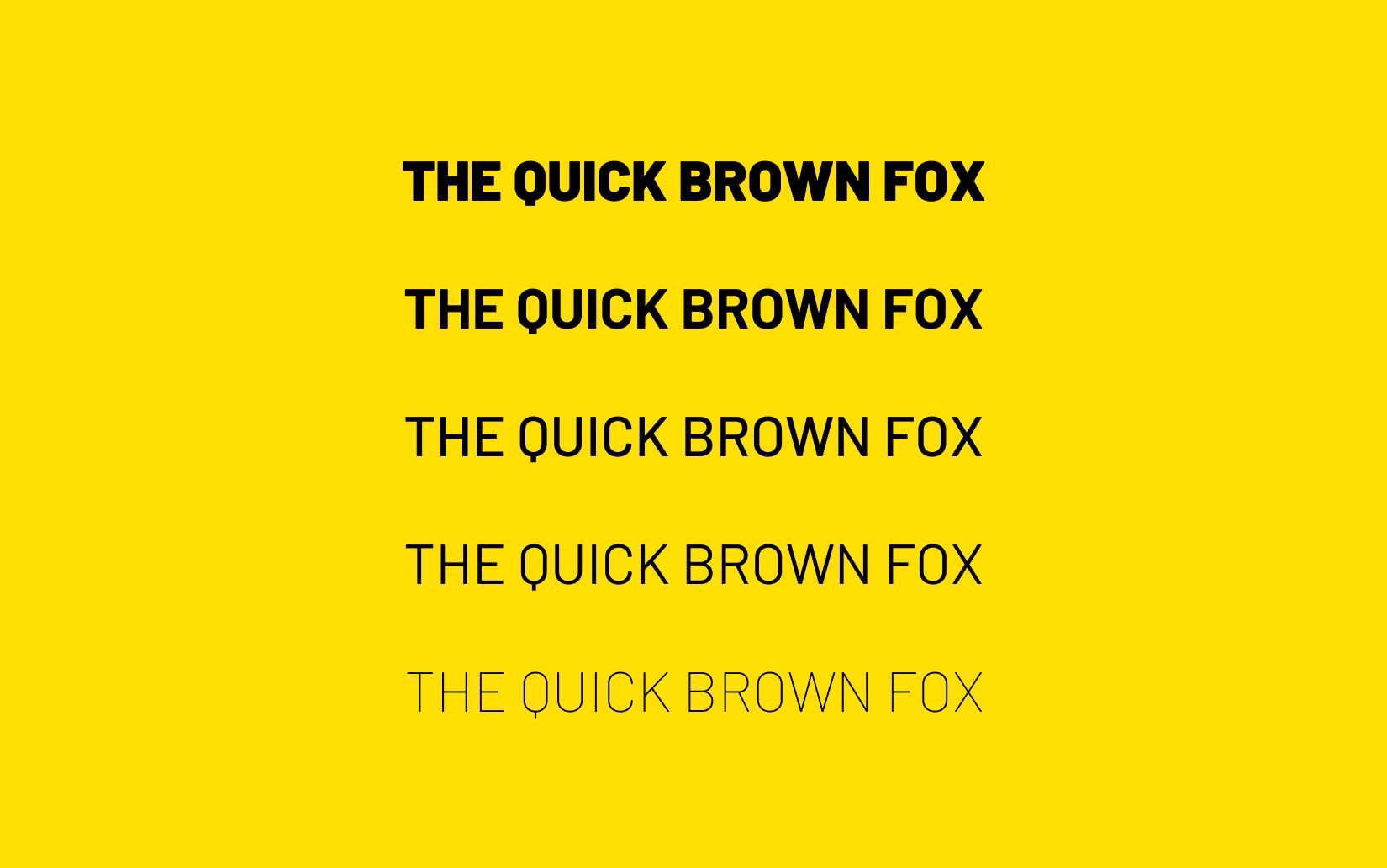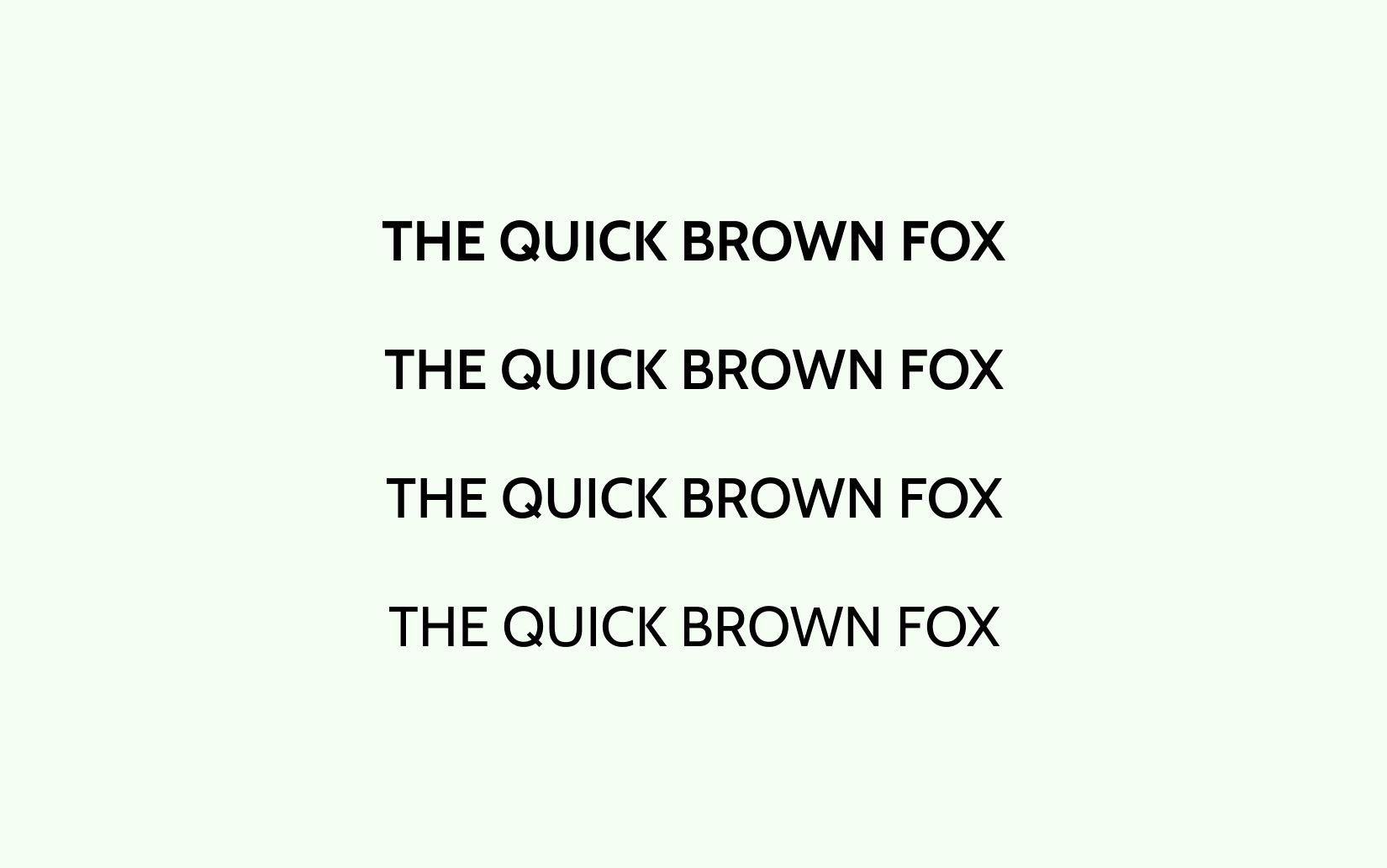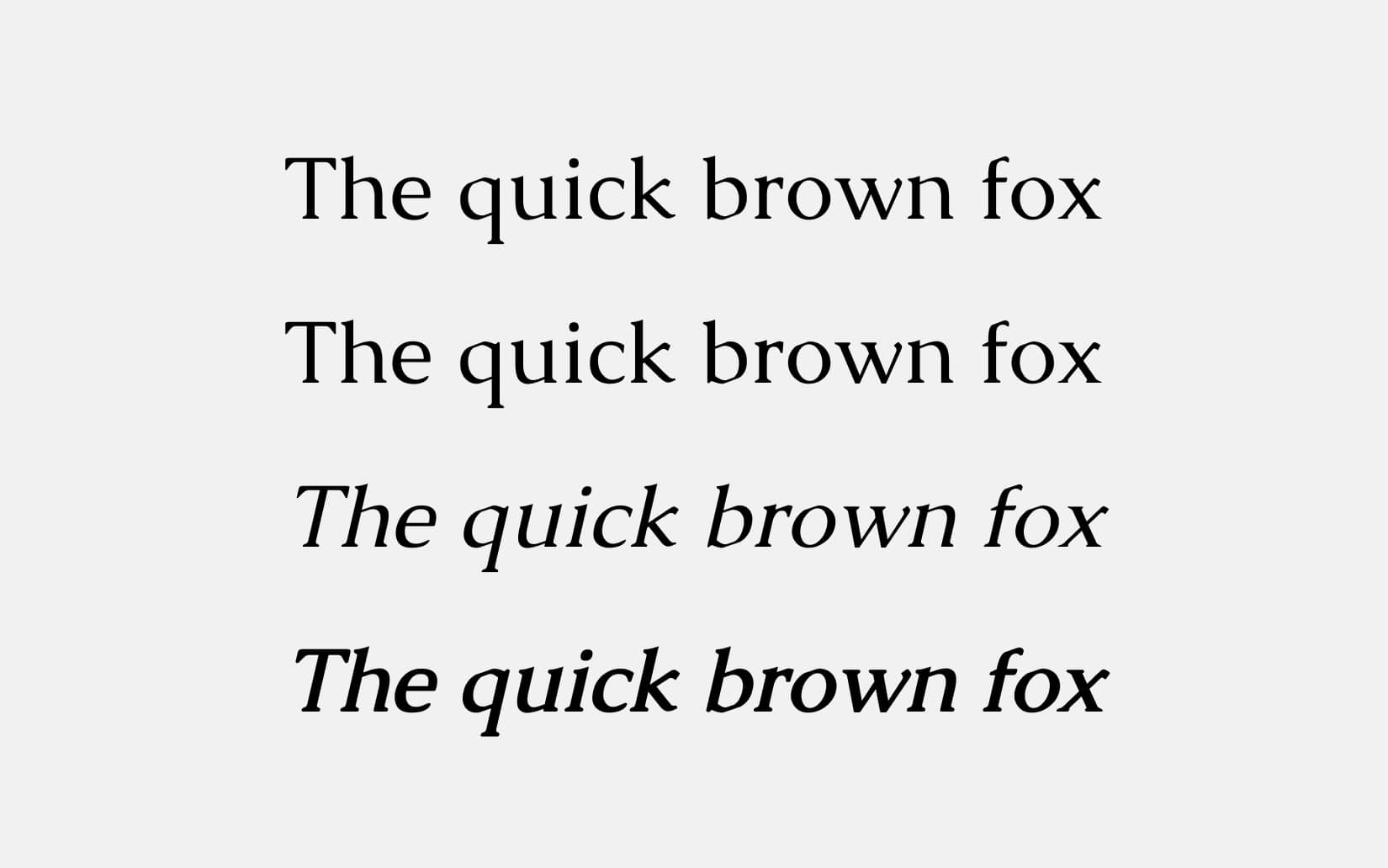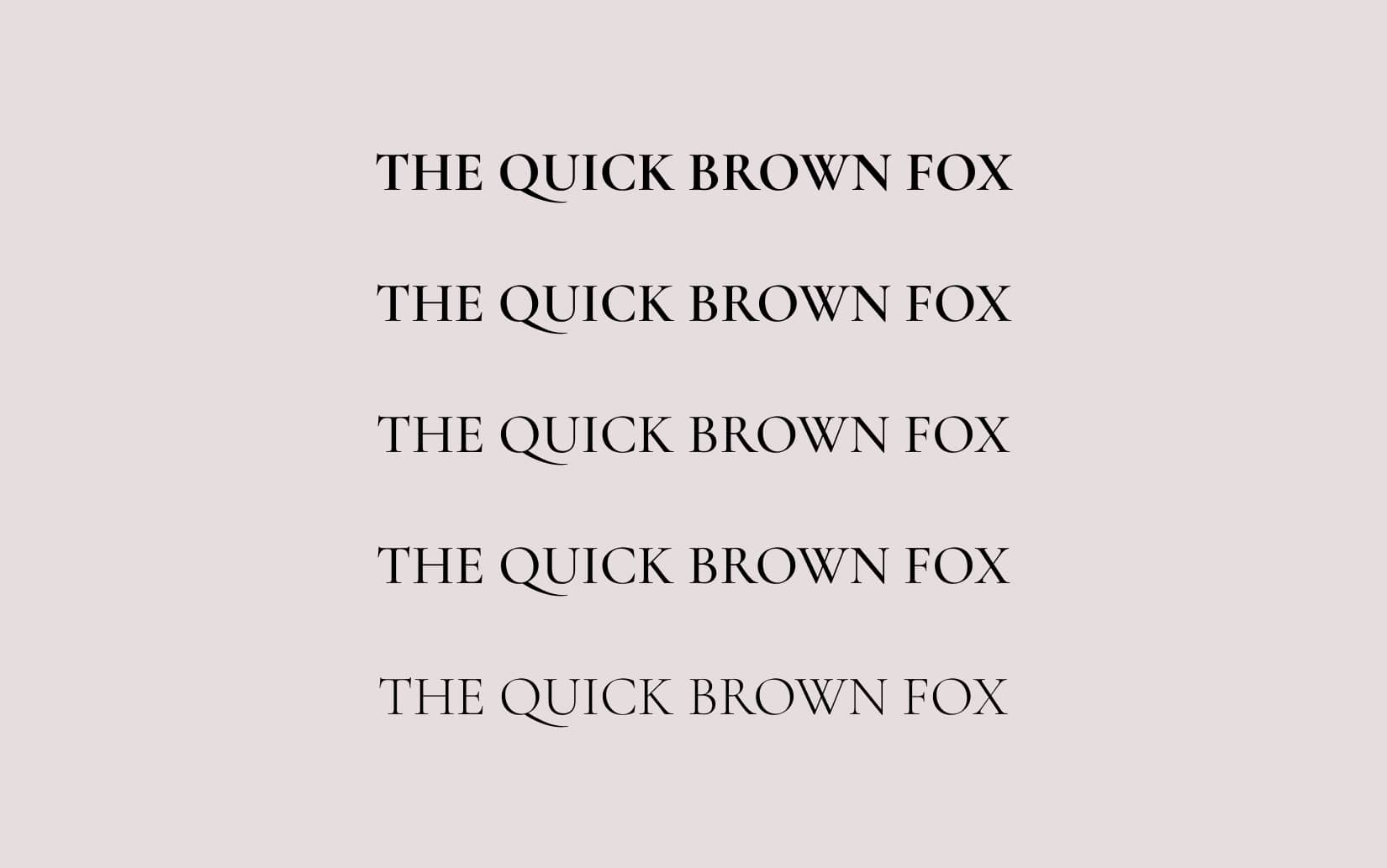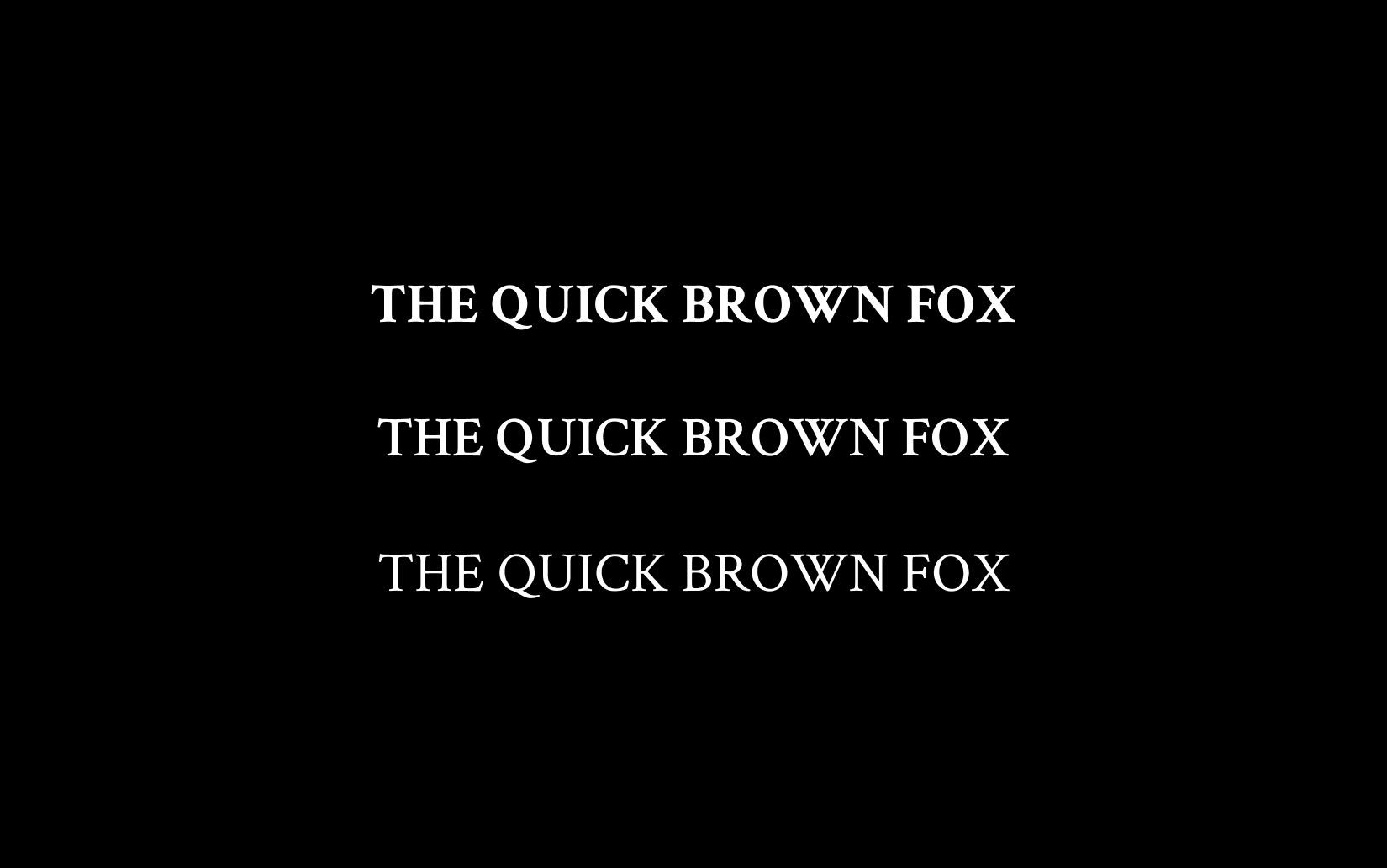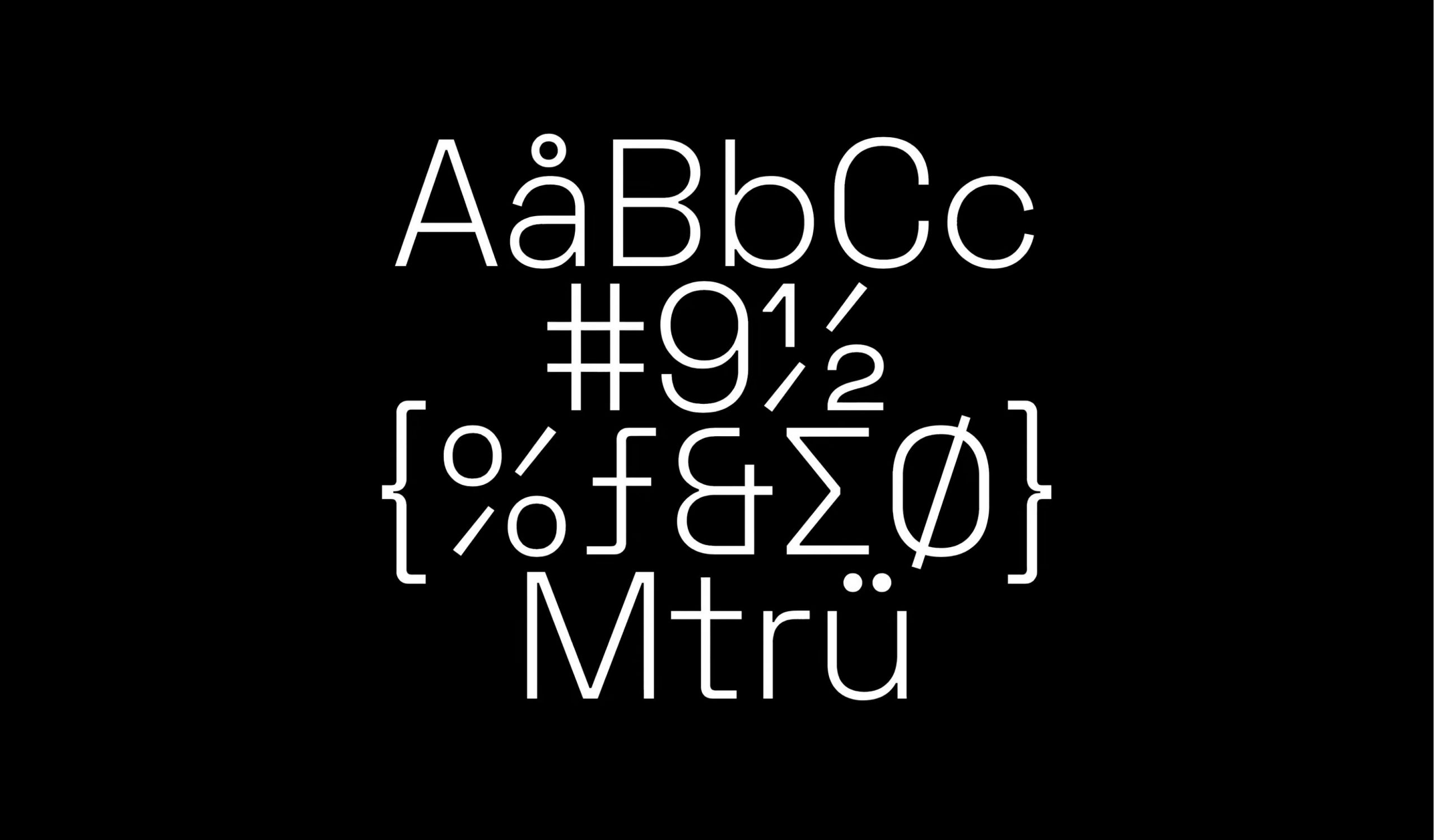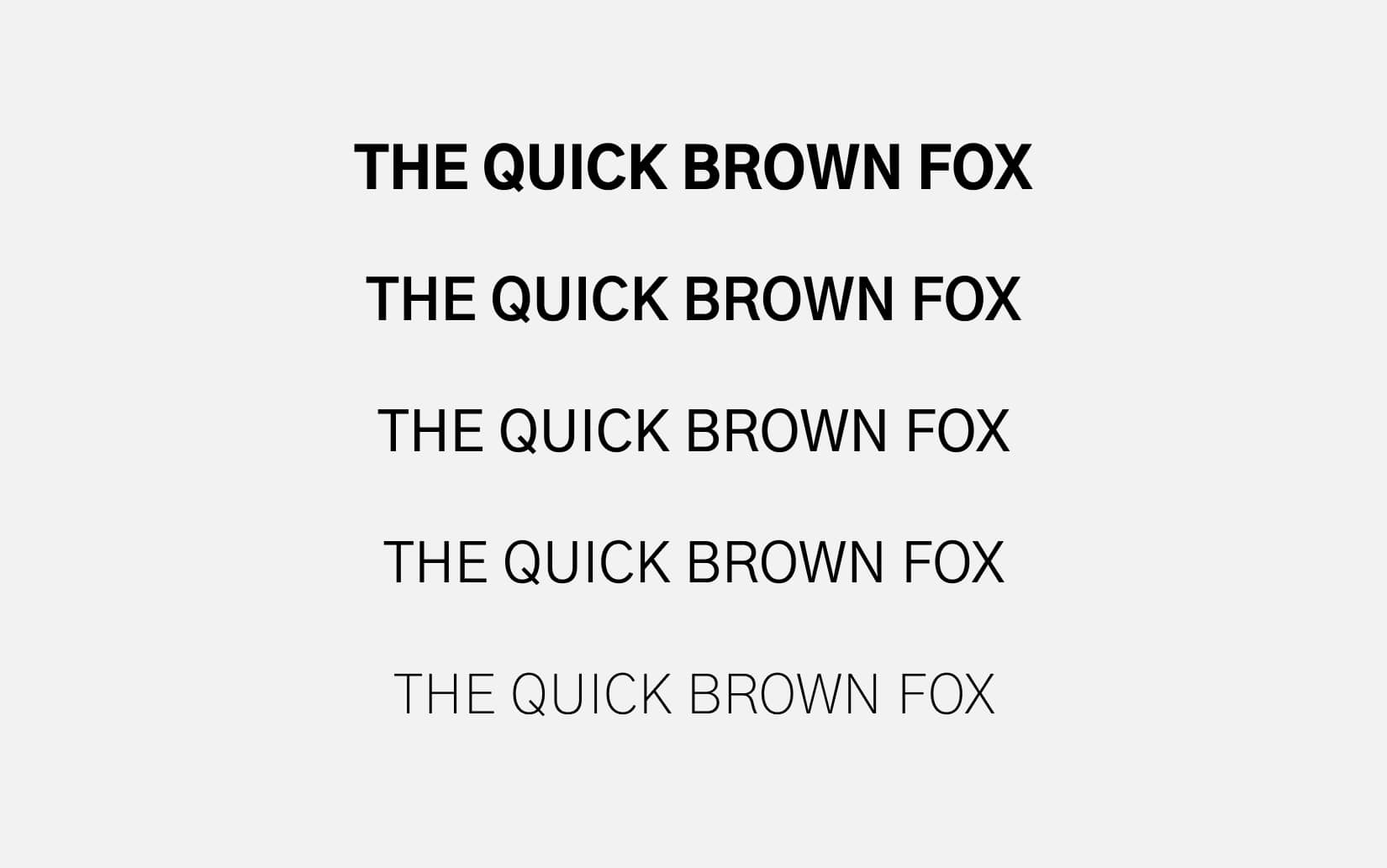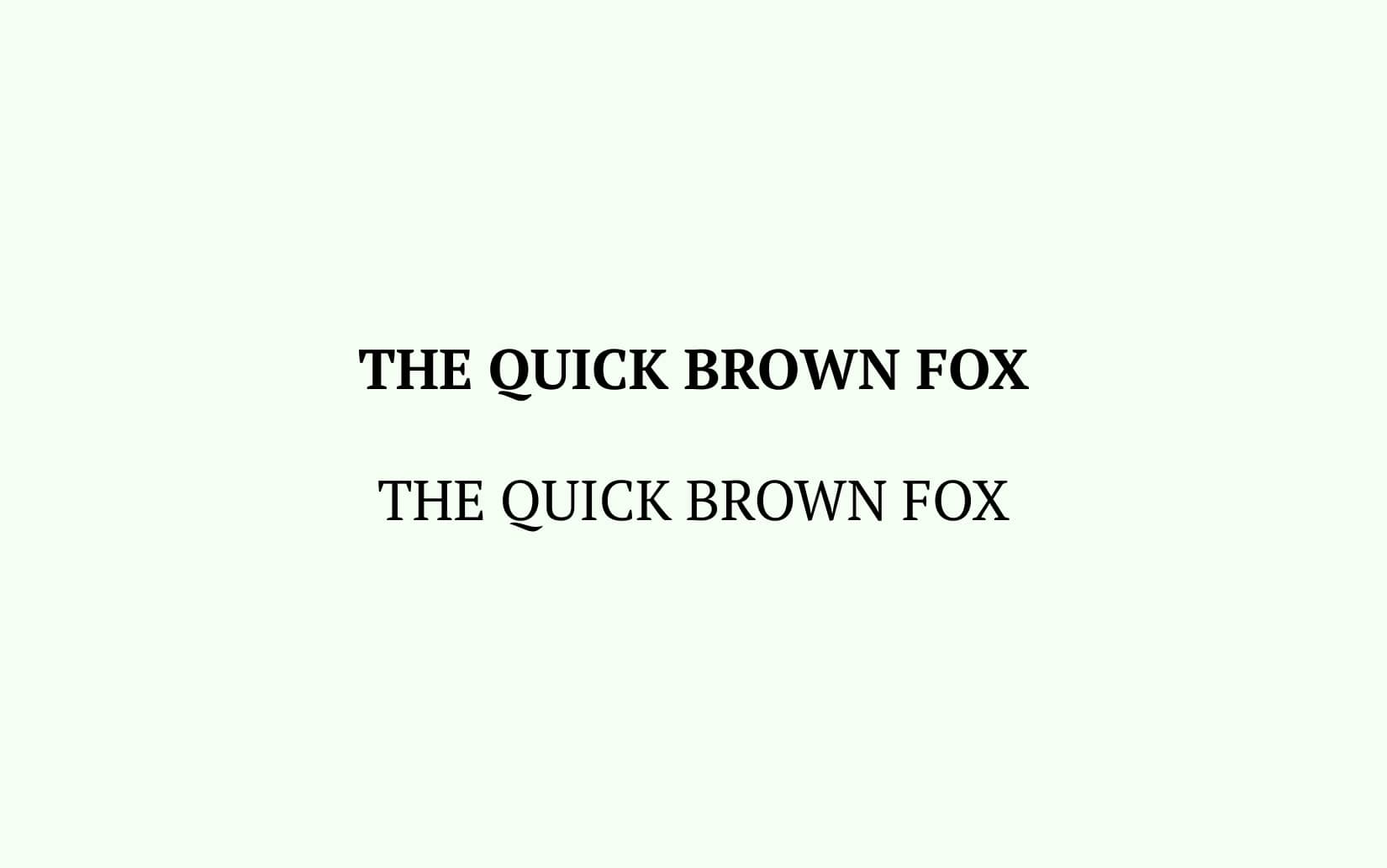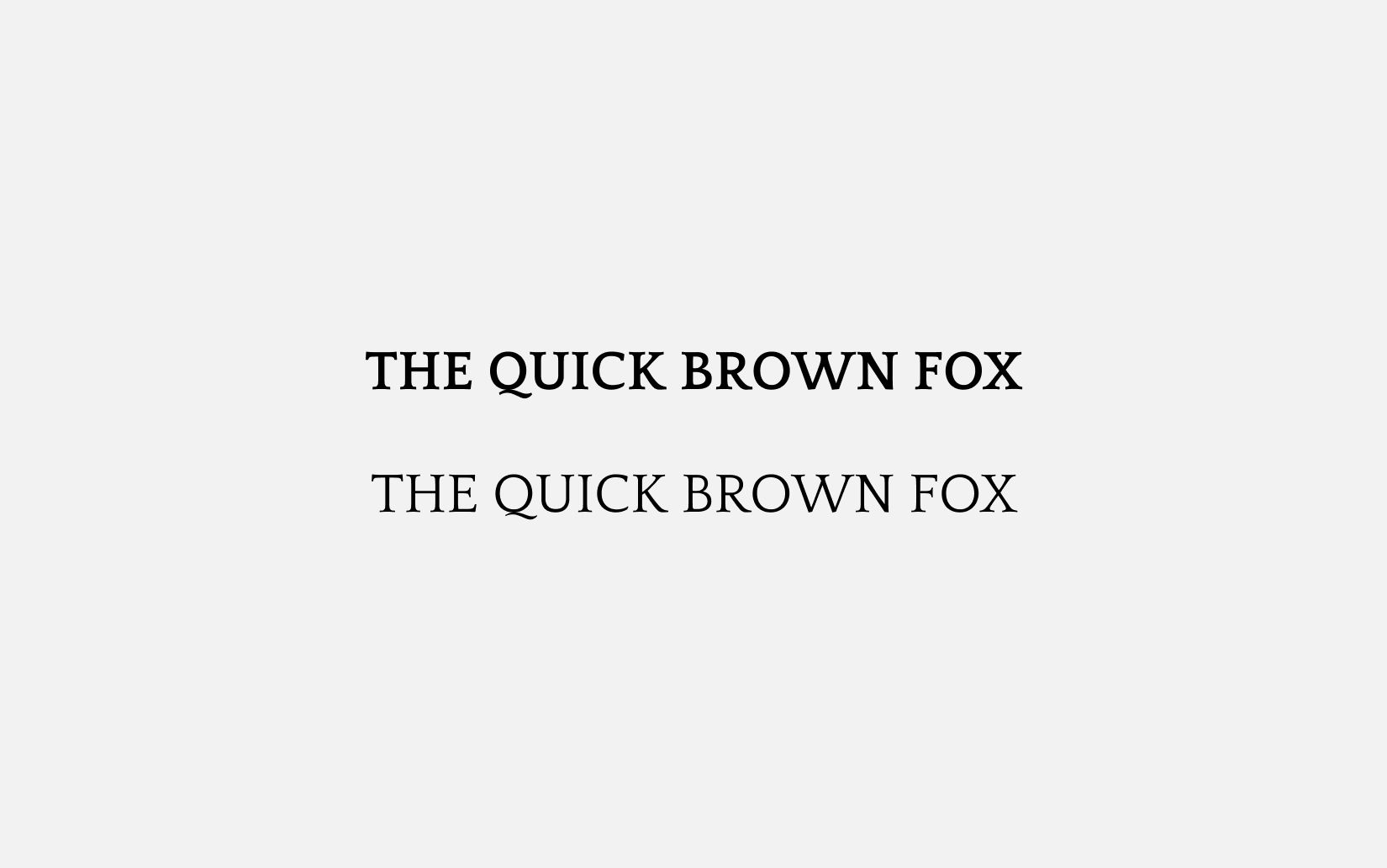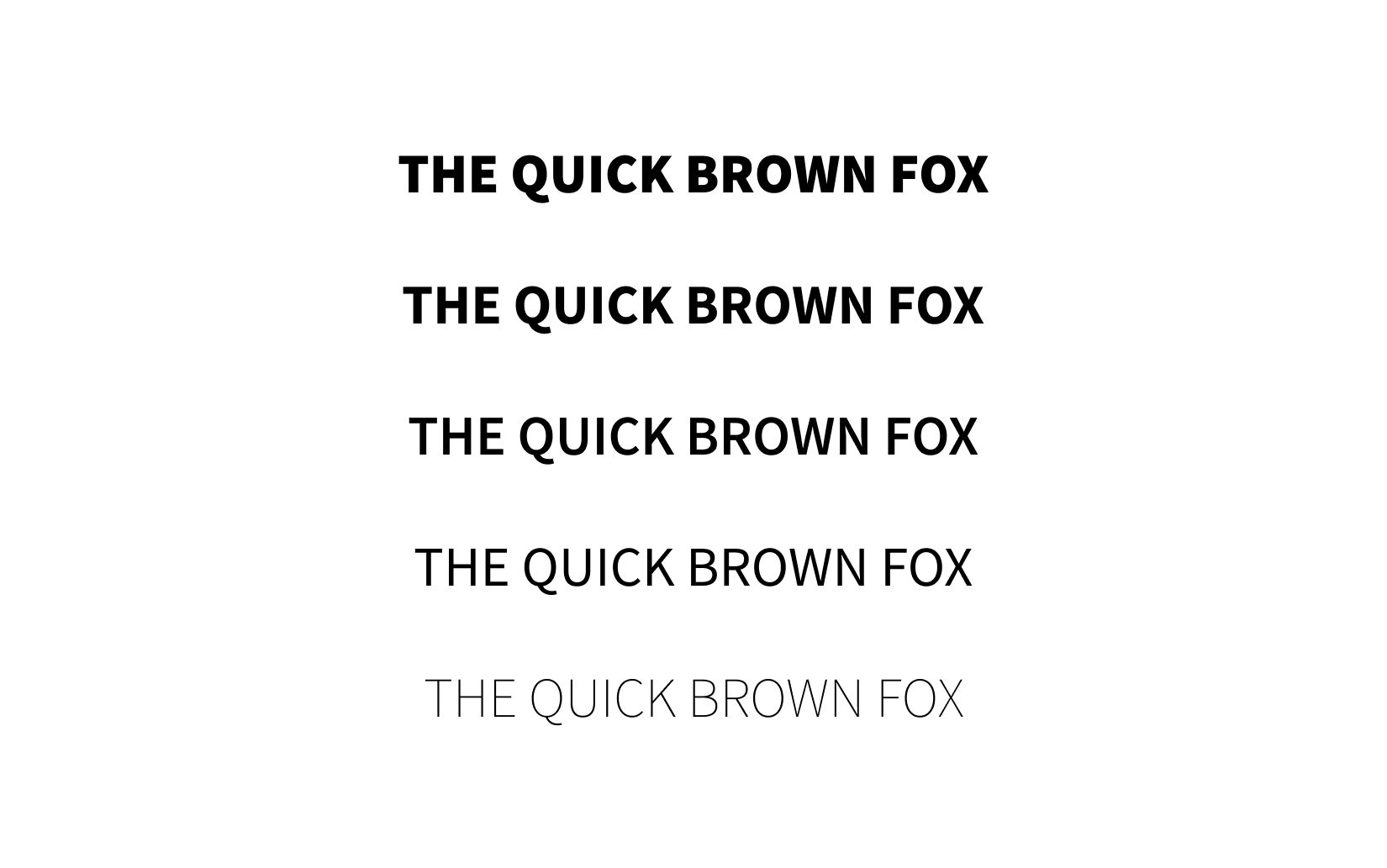
Best Free Serif and Sans Serif Fonts 2020
Typography is more important than one gives credit for. Until you start working with people who share a tremendous love for typography, or a Typophile if one would say, you don’t quite grasp the significance or impact a certain font type can have on your design. And finding that perfect free font is not at all that easy.
Choosing the right font to use in your design or project is just like deciding what to wear for your job interview. You’d have to follow a dress code suitable for the job your applying to. The same principle applies to fonts and the concept you are going to give to your design or project is mutually dependent on the type of font you will apply.
The internet is suffused with various types of font and choosing the one would be harder than expected. To narrow down the list, you could first start by recognizing the approach you are going to give to your design.
Once that is established, you can narrow down the list a little bit further by researching about font psychology because communication is key on all instances. Our associations with different inspirational typography trigger powerful ideas and emotions.
If you’ve ever heard about the “Gestalt Theory”, which states that people often intrinsically see the various parts of an entity as a whole. What this means is that we consciously seek to find meaning in things, even when that meaning is not necessarily apparent. In web design, especially when designing brand logos, all parts shall fall into perfect harmony to convey the brand’s unique values.
Serif and Sans Serif fonts are tremendously popular by almost everyone in the web world or even broader. In this article, we are going to provide with the most extraordinary and rare serifs and sans serifs, fonts to convey the right message for your audience.
Sans Serif typefaces originate back from the eighteenth century but did not witness widespread until a century later. There is a clear distinction between the two fonts, in the print world serifs are universally used in for setting body copy text, nonetheless, in the web world sans serif typefaces seem to be ruling.
In the next sections, we are going to show you what typefaces are appropriate to use and where. As we made a compilation of some of the most beautiful and singular serif and sans serif fonts. Stay with us.
Why Choose Sans Serif fonts?
As the names suggest the main distinction between the two fonts is the presence or the absence of serifs within the letters. What is a serif, one might ask? A serif is a decorative line or tail that is added at the beginning of the end of a letter’s stem.
Sans Serif fonts are sleek and sophisticated and tend to give more of a modern sophistication look. Sans Serifs are minimal and simplistic and they can often be seen more approachable due to their simplicity.
Depending on the message you want to convey with your brand or design, if you are looking to come off as more youthful accessible, Sans Serifs are the way to go. The sharp, cutting-edge, and clean lines of Sans Serif, will make your brand more receptive and playful due to the lucidity these typefaces show.
Why Choose Serif fonts?
On the other hand, while Sans Serifs are perceived as more modern and are commonly used in design, Serifs have their advantages when it comes to elegance and style. Serifs are perceived as more traditional and elegant, but they most certainly are not outdated.
As mentioned earlier, Serifs have been widely used for setting running text, mostly, in books, newspapers, and magazines, that might be the reason they convey a more classic, formal or sophisticated warmth and feel.
If you want your brand or design to convey the message as reliable and trustworthy, then Serifs are the obvious choice. These typefaces would make the perfect fit for companies that are traditional-oriented like law firms, financial firms or insurance companies, or even editorials, like the example of Vogue magazine. Serifs will give people a feeling of elegance, assurance, and stability.
Top 15 Most Rare Sans Serif fonts
For this article, we have chosen 15 of the most beautiful sans serif fonts that you can download for free. They are guaranteed to elevate your design in scales you would have not imagined. Although Sans Serifs are widely spread across the web, we have hand-picked some of the rarest typefaces which you can download for free.
Acumin
Acumin is a Sans Serif font designed by Robert Slimbach and published in Adobe Fonts. Acumin is considered to be the “Helvetica for Reader“. The creator of this font Slimbach aimed to create a font that could work as a text face but designed in a contemporary neo-grotesque style.
The font comes in various styles. It is available in five widths, with each width in nine weights and matching italics. That comprises of 90 styles, only 4 of them being available in the free version from Adobe.
Glacial Indifference
This next font Glacial Indifference is a geometrical Sans Serif font designed by Hanken Design Co and inspired by Bauhaus font and has similarities to the exclusive Futura font. Included within the font are 3 styles, Italic, Bold and Regular.
Glacial Indifference is a free and open-source font that you can download, to style your next design with style and sophistication.
Poppins
Another geometric Sans Serif in the list, this time we have included Poppins as one of the most beautiful fonts to include in your next project. The typeface was created by Indian Type Foundry with the support by Devanagari and Latin writing systems. Both writing systems are based on pure geometry and particularly circles.
Poppins typeface is characterized by monolinear letter form, with optical corrections to the stroke joint only where it is necessary to maintain an even typographic color. This font would make the perfect choice as a heading font or body text.
HK Grotesk
HK Grotesk is another free open-source Sans Serifs fonts inspired by classic grotesque. The goal for designing HT Grotesk was to create a more conspicuous typeface that would be best suitable for small text.
The font comes along with 14 styles and was designed by Alfredo Marco Pradil. The styles vary from Light to Black, each with matching italics. HK Grotesk is issued under the SIL OFL license which can be used for commercial and personal use.
Space Grotesk
Next on our rare Sans Serif fonts is Space Grotesk that is an altered version of the fixed-width Space Mono typeface. he alteration included proportional fixes, but also retain some of the angular eccentricity of Space Mono. The typeface was designed by Florian Karsten in 2017.
The Space Grotesk font comes with 5 weights and their corresponding italics styles available. Space Grotesk offer a functional face and supports Latin Extended-A character set, including several OpenType features that make this typeface suitable for many purposes
D-Din
D-Din is an amazing free to download Sans Serif typeface. The D-Din font was originally designed for industrial use thus making the font perfectly fitted in technical traffic and administrative application. The uncomplicated, unadorned and austere nature of the font has made it highly popular in display adoptions.
The font comes available in 8 styles: D-DIN Regular, Italic, Bold, Condensed Regular, Condensed Bold, Expanded Regular, Expanded Italic, and Expanded Bold.
Renner
Renner is a refined Sans Serif font that was primarily inspired by the highly popular typeface Futura. Renner in its core concept was designed to maintain the attitude of Futura, not to be a cheap copy of the typeface. Futura was a revolutionary design speaking on the era it was created because it was highly functional.
Renner font is to continue the consistency and become as functional as possible in the digital generation. The typeface comes in 9 weights, varying from Hairline to Black and supports the OpenType Variable Font, meaning it allows users to control the weight and italic of the font. The Renner font is available for free download and comes in one style, the font has recently changed the name to Jost, so if you wish to download other styles, they will be under the new name.
Alegreya Sans
Alegreya Sans is another of our rarest free Sans Serif fonts but comes crashing the list with bountiful styles and beautiful typefaces. Alegreya Sans is a font inspired merely by calligraphic letterforms, each conveying a dynamic and varied rhythm.
The font was designed by Juan Pablo Del Peral, it was originally aimed for long-form text, but the popularity of the font grew, making it a perfect fit for headlines as well. The elements in the font variety were carefully designed and work in perfect harmony and in an atmosphere of diversity.
Cabin
Another amazing Sans Serif is added to the list comprising beauty and modernism as its core values. Inspired by Edward Johnston’s and Eric Gill’s typefaces incorporate contemporary dimensions, ocular adjustments and include some elements of the geometric sans.
The font was designed by Impallari Type and has maintained its originality. It comes with four weights and true italics and can be found on the Google Fonts library.
Barlow Condensed
Let’s change the style a little bit, we are here to present to you Barlow Condensed, slightly rounded but high contrast font that’s part of the Condensed family. Inspired by the Californian lifestyle, this sans serif typeface resonates with the state’s car plates, highway signs, busses, and trains.
The font was designed by Jeremy Tribby a designer based in San Francisco, hence the Californian inspiration. This amazing rare Sans Serif font comes in nine weights in Roman and Italics.
Source Sans Pro
Another amazing free sans serif font accompanies our list to enrich it with style and elegance. Source Sans Pro is a free sans serif font available in Google Font’s library. The typeface is indeed the perfect pair for user interfaces. It bends well together with other sans serif fonts such as Roboto.
The font was designed by Paul D. Hunt and work under the Open Font License and can be used by all this who worship a fine taste of elegance.
Gothic A1
Different from the name of the typeface, Gothic A1 is a versatile sans serif inspired by Korean and Latin font. Gothic A1 typeface comes with multiple weights and optimized spatial distribution. The font is licensed under Open Font License, meaning you are free to use the font on your next projects.
You can download the font for free on Google Fonts and use it either as your body text or headings.
Basier Mono
Basier Mono is another addition to our rarest serif and sans serif fonts. The typeface comes in two families and includes 16 styles, giving you the freedom to create exceptional typography showcases. Basier Mono is a neo-grotesque sans serif that suited for logotypes, branding, editorials, and finds use in web design.
The font is mainly inspired by the International Style and was designed by Atipo is an independent digital typeface studio. The font can be used for personal and commercial works.
Heebo
Another font on the list to add elegance and sophistication to our topmost rare sans serif fonts. Heebo is included in the Latin and Hebrew typeface family and presents a unique vertical metrics than that of Roboto font. This typeface project is lead by Meir Sadan and is available to download for free on Google Fonts.
Heebo is an elegant and classy typeface that would be best suited for text. The font is under the Open Font License, which means it is available for either personal or commercial use. Heebo comes free in 9 style randing in style and weight. Use Heebo on your next project to elevate your design.
Quicksand
We will continue our hunt for the best sans serif fonts to provide you with bountiful resources of typography options, as it compounds as a major component of each design. Next on the list of best sans serif font we have the typeface of Quicksand, a beautiful sans serif font that is primarily inspired on geometric shapes.
The typeface was first introduced by Andrew Paglinawan in 2008 and is a sans serif font with rounded terminals. Quicksand is free to download on Google Fonts under the Open Font License that allows the use of the font either for personal products and projects as well as commercial, print, or digital. The font is a great choice for display text but was optimized for small text as well.
Top 15 Most Rare Free Serif fonts
Serif fonts represent tradition and elegance, they provide the feeling for liability, and people mostly are dawn to tradition, as they associate the latter with loyalty and heritage. In this second part of the article, we are going to provide the list with the best and rarest Serif fonts that you can download for free.
Inknut Antiqua
Inknut Antiqua is a serif typeface designed by Claus Eggers Sørensen and it’s available for free download on Google Fonts. The typeface was designed for long-form text and paragraphs using the Latin or Devanagari scripts.
The font presents a beautiful paradox because of its modern cut from a historical style. The font was inspired to evoke Venetian incunabula and humanist manuscripts but hasn’t lost it the eccentricity that’s a characteristic in this artisanal tradition.
EB Garamond
EB Garamond is a free and open-source font that is an implementation of the Garamond typeface, which among designers, especially print designers is considered to be one of the best fonts. The EB Garamond is a typeface that is distinguished because it is timeless and highly readable.
The font is perceived to convey authority and stability, as most of the Serifs are, but EB Garamond adds a slighter tone of warmth. Although Garamond fonts have a reputation of gein used perfectly in pine prints. EB Garamond is great for the screen as well. The font is under the Open Font License for personal and commercial use.
Adobe Garamond
Another Gramond on the list, I guess our designers really love this font. Adobe Garamond is another amazing Serif font that is free to download in 6 styles. Robert Slimbach, the designer behind Adobe Garamond has beautifully balanced the original Garamond font while still maintaining a typeface that is all the benefits of the contemporary digital face.
Due to its resilience and legibility in a variety of sizes, colors, and compositions, Adobe Garamond would be the font to go for your next project or design.
Source Serif
We will continue the list with the Stunning Source Serif font that represents just the right amount of richness, expressiveness, and strength. The font was inspired by Fournier but has managed to maintain its authenticity with the eclectic touches
The font was designed by Frank Grießhammer and is available in 12 styles, each included in the free download, starting from the Source Serif Pro ExtraLight to Source Serif Pro Semibold Italic.
Adobe Caslon
Adobe Caslon if up next on your free sources for Serif fonts, the typeface was designed by Adobe creator Carol Twombly who studied samples of pages printed by William Caslon between 1734 and 1770. Adobe Caslon has only 3 styles available for free, to gain access to the other three styles you would need a premium upgrade.
The free typeface styles include: Adobe Caslon Pro Semibold, Adobe Caslon Pro Semibold Italic, and Adobe Caslon Pro Bold Italic. This typeface would be the perfect solution for book publishing, magazines, journals, or corporate communications.
Reforma
Following our free Serif fonts, Reforma is designed by Alejandro Lo Celso for the Universidad Nacional de Córdoba a pioneer university in Argentina, thus it implies that the font will convey tradition, diversity, and research.
Reforma is a multi-form family with diversification of styles and is free to download for public and private use under a Creative Commons license. All the Reforma fonts are included in three subfamilies: classic, modern, and a hybrid combination of the two subfamilies.
Young Serif
Young Serif is as the name suggest a free Serif typeface that was designed by Upload a graphic design studio in 2013, and comes available in YoungSerif Regular.
The Young Serif font is a heavy-weight, old-fashioned serif that was inspired by the works like Plantin Infant or ITC Italian Old Style. The typeface provides a sort of tenderness and due to the rounded curves on the lowercase b and f. This amazing and rare sans serif font is available for free under the SIL Open Font License.
Butler
If you are looking for a classical and ravishing design for your project or logo brand to transform construction, we might as well say it, the Butler did it. Butler is another open-source free typeface that comes in multiple styles, all free to download.
The font is inspired by the Dala Floda & the Bodoni family. Although controversial, the typefaces aimed to bring some modernity to serifs by working on the curves of classical serifs and adding an extra pattern to the font. Butler is an excellent choice for posters, big titles, books, and fancy stuff.
Libre Baskerville
Libre Baskerville is an open-source serif typeface that comes available in Google Fonts. Designed by Impallari Type the font was inspired by American Type Founder’s Baskerville from 1941, with some changes and adjustments such as a taller x-height, wider counters, and a little less contrast.
This typeface is the perfect choice for screen reading body text. You can use it for your next portfolio project, agency, business website, print, digital, commercial, or otherwise.
Quattrocento
If you are on the lookout for a classic, elegant, compelling typeface for your next project then Quattrocento is the obvious choice. This open-source Serif typeface comes with some distinct features like low contrast, cupped, and tapered steams that flow naturally throughout the serifs.
Quattrocento serif typeface makes the perfect choice for small body text. The wide and open letterforms alongside the greater x-height provide the incentive for such use. You can find the Quattrocento font free available on Google Font.
Crimson Text
Next on the rarest free serif fonts, we have included Crimson Text, for its originality. This typeface was designed to be spread out in the book production world presenting a beautiful old school style that rich in tradition.
The Crimson Text was inspired by the works of Jan Tschichold, Robert Slimbach, and Jonathan Hoefler and designed by Sebastian Kosch. Use it on your next project as it comes free, available on Google Font library.
Cormorant
Cormorant Garamond is another absolutely stunning serif font developed by Christian Thalmann, inspired by Claude Garamont’s legacy. The Cormorant typeface presents elegance and beauty and the best thing about it is that it comes in a plethora of font files. Cormorant is free to download and include onto your next project, altogether with 9 different visual styles and 5 weights.
Use the Cormorant font for your next project, as it is available to be used either for personal or commercial application.
PT Serif
Another rare serif font on the list, this time we present to your PT Serif fonts, a versatile typeface with a unique design. The font originally for the project “Public Types of the Russian Federation”, but now finds use in exceptional typography showcases.
The font is released under the libre license that allows redistribution. Although comes only in 4 weights, including it and mixing with other typefaces like Open Sans would elevate the design.
Caudex
For the list of the best free serif fonts we have included Caudex serif typeface as well, the font presents a unique and classic style that presents a strong character. The font was originally introduced in the late 90s for printing a piece of old handwritten text.
Currently, the font is available for download on Google Fonts under the Open Font License. This type of license allows you to use the font either on your next personal project for commercial use, print, or digital.
Spectral
Spectral is the typical serif typeface that presents the embodied the decorative line that’s emblematic to serif fonts. Its beauty and elegance derive from the cutting-edge corners and versatile styles. The font is a new and fresh face f the serif typeface that comes available in seven weights and styles, with small caps.
Spectral will provide beauty and charm to your project as it is primarily intended for long texts, screen-first environment, and reading. The font was designed by Production Type and is available to download for free on the Google Fonts repository. It is currently under the Open Font Type License.
Final Words
This concludes our article. In our prolonged list of free fonts, we have captured and included some of the most beautiful Sans Serif and Serif fonts that you can incorporate on your next design or project. All the fonts are available for free, meaning you have the freedom to use them for personal or commercial reasons.
Be picky of your typography and the fonts you choose, after all, they do play a major part in how your text, design or brand is going to be perceived by the broader audience. Choose wisely.